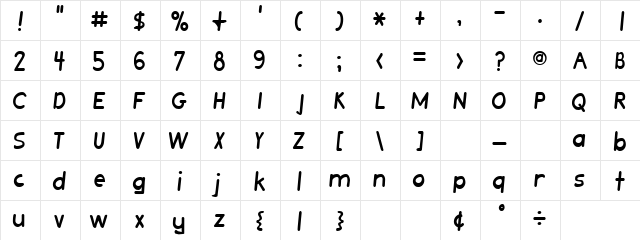
Paranoia 1 Bold
Design Context for Paranoia 1 Typeface
Paranoia 1 is a composed and adaptable typeface that performs quietly and consistently across a wide range of design contexts. The heavy weight commands attention and anchors typographic hierarchies.